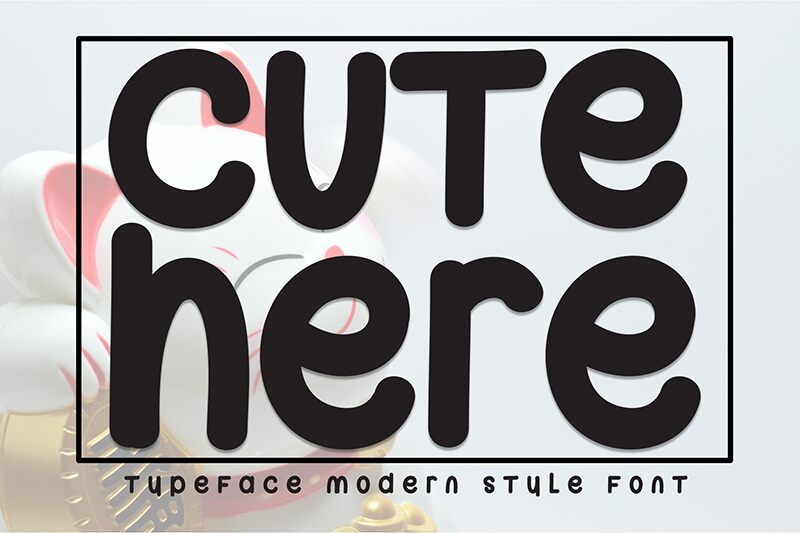
Cute Here
Cute Here font by Andi Moz is a brush free font with a playful, rounded style. Its friendly and casual appearance makes it feel approachable and youthful, making sure to set up the appropriate tone for the readers. Uniquely designed individual character strokes add an artistic feel that will enrich every project where this resource is used.